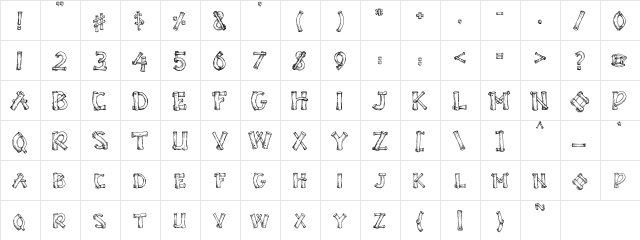
PC Log Regular Font Preview
PC Log Regular
PC Log Regular Font Details
Design Context for PC Log Typeface
PC Log is a composed and adaptable typeface that performs quietly and consistently across a wide range of design contexts.